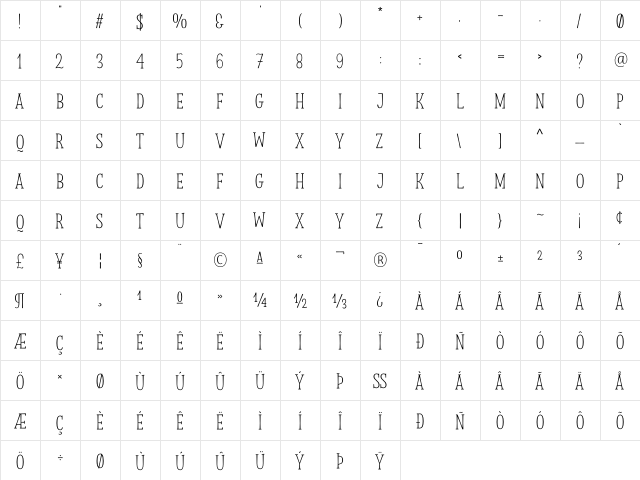
Storyteller Serif Regular
Regular · Elena Genova Elena Genova ·
Foundry Elena Genova
DesignerElena Genova
Design Context for Storyteller Serif Typeface
Storyteller Serif brings classic typographic sensibility to the table — its serifs and measured letterforms reflect centuries of print heritage.
Pro Tip: Set Storyteller Serif with slightly loose tracking in headlines to let each letterform's detail read clearly at display sizes.